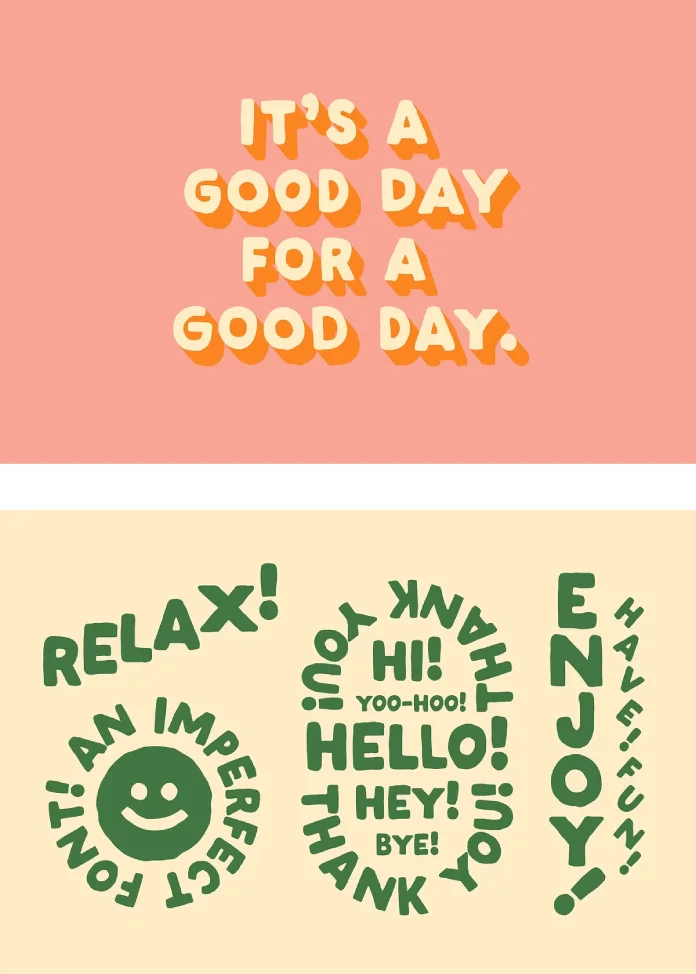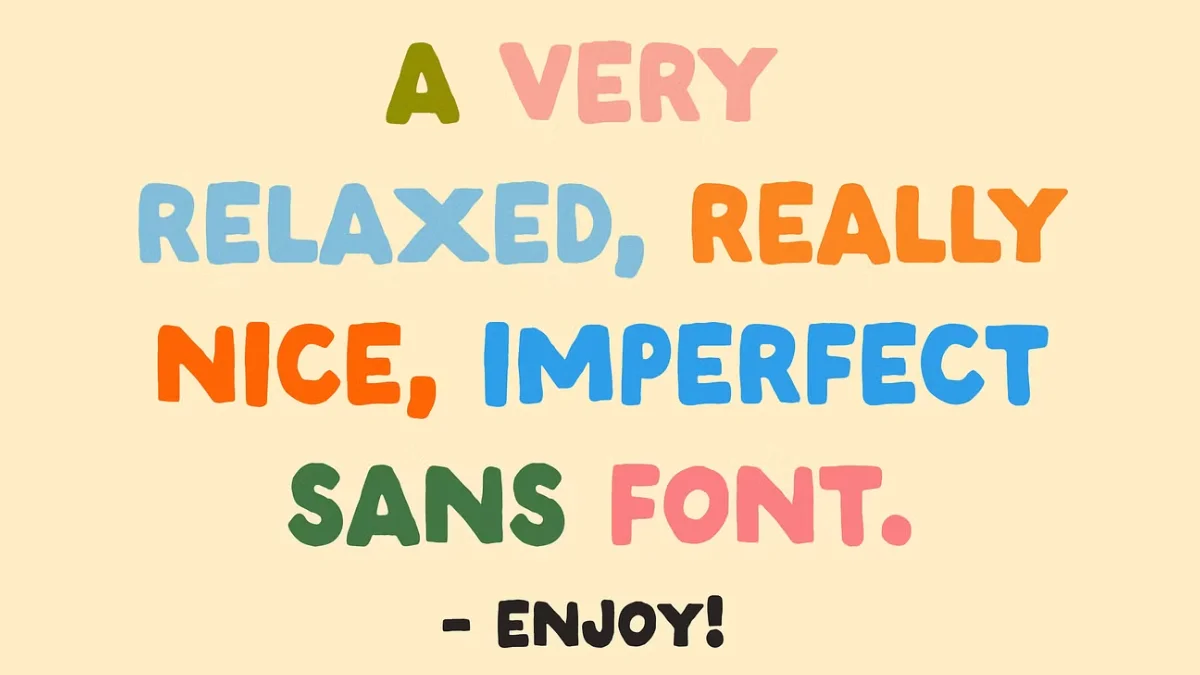
Let’s Take a Look at Studio Funshop’s Imperfect Font: Your New Go-To for Authentic Handwritten Charm
You know that feeling when you receive a handwritten note versus an email? There’s a warmth, a personality, a human touch that digital perfection often misses. What if you could bring that genuine, handcrafted feeling into your own projects? Think about logos that feel welcoming, social media quotes that truly resonate, or website titles that instantly connect with visitors. It sounds pretty appealing, right? Many designers and creators are searching for ways to inject that much-needed authenticity back into their work. They want tools that help them stand out, not blend in. Finding that perfect balance between professional polish and relatable warmth can be tricky. You need something unique, something with character, something… well, perfectly imperfect. This is where the magic often happens. It’s in those slight variations, the subtle inconsistencies, that true personality shines through. And that’s exactly what brings us to a delightful discovery: the Imperfect font.
Meet the Star: The Imperfect Font by Studio Funshop
So, what exactly is this Imperfect font everyone’s starting to talk about? It’s a fantastic handwritten sans-serif typeface created by the talented Kelli at Studio Funshop. Imagine someone carefully, yet casually, writing out letters. Not with robotic precision, but with the natural flow and slight variations that come from a human hand. That’s the essence captured in the Imperfect font. Kelli literally drew each character individually. Think about that for a moment. Every letter, every number, every symbol started as a hand-drawn element. This process inherently builds in those wonderful little quirks – the “imperfections” – that make handwriting so appealing. It’s not about mistakes; it’s about character. It’s relaxed, approachable, and feels incredibly genuine, like receiving a friendly note penned just for you. If you appreciate things that feel handmade, hand-lettered, or personally drawn, the Imperfect font will likely feel like a breath of fresh air.
The Inspiration Behind the Quirks
Where does such a uniquely human font come from? Kelli shares that the inspiration for the Imperfect font is a wonderful mix of cherished aesthetics. Think about the charm of vintage printing, where the ink might not hit the page perfectly every time, creating unique textures. Remember doodling absentmindedly on a notepad during a long call? That relaxed, uninhibited style is echoed here. Consider the warmth of personal, handwritten notes passed between friends. These elements – vintage character, casual doodling, and personal handwriting – all converge in the Imperfect font. It’s a tribute to the beauty found in things not quite polished, the things that tell a story through their very form. Kelli’s love for hand-lettering shines through, transforming these inspirations into a usable, versatile digital font that retains that essential handmade soul. It’s clear this wasn’t just about creating letters; it was about bottling a feeling.
Exploring the Unique Charm of the Imperfect Font
What specifically makes the Imperfect font so special? It’s all about the details. First off, being a sans-serif font means it lacks those little “feet” (serifs) at the ends of strokes, giving it a clean, modern base. However, overlaying this clean structure is the undeniable handwritten quality. The lines aren’t perfectly straight. The curves aren’t mathematically precise. This is intentional, and it’s where the magic lies.
Furthermore, Kelli included alternates! What are alternates, you ask? They are different versions of the same letter. Having alternates means you can swap out letters within a word to avoid repetition and enhance the natural, handwritten look. For instance, if you type the word “LOOK,” the two ‘O’s don’t have to look identical, just like they wouldn’t if you wrote them by hand quickly. This feature significantly boosts the font’s authenticity. It prevents that tell-tale sign of digital text where identical letters look exactly the same. Using the Imperfect font with its alternates allows your text to feel dynamic and genuinely custom-lettered. It’s these thoughtful inclusions that elevate it beyond a simple typeface; it becomes a tool for creating truly unique and personable designs.
Where Can You Use This Handwritten Sans-Serif?
Okay, you’re intrigued by the Imperfect font. But where would you actually use it? Its versatility might surprise you.
- Logos: Need a brand identity that feels friendly, approachable, and creative? The Imperfect font is perfect for logos that want to convey personality and warmth. Think cafes, artisan boutiques, craft businesses, personal brands, or any company wanting to appear more human.
- Quotes: Whether for social media graphics, posters, or website banners, this font makes quotes pop. Its handwritten style adds emphasis and emotional resonance, making the message feel more personal and impactful. Imagine your favorite inspiring quote rendered in this charming script.
- Art & Illustrations: Integrating text into artwork? The Imperfect font blends beautifully with hand-drawn illustrations or mixed-media pieces, maintaining a cohesive, handcrafted aesthetic.
- Titles & Headings: Use it for blog post titles, section headers on a website, or chapter titles in a document to add a touch of informal elegance and draw the reader in.
- Packaging & Labels: Products aiming for an organic, handmade, or bespoke feel can benefit immensely. Think jam jars, soap packaging, or clothing tags.
- Greeting Cards & Invitations: Perfect for adding a personal touch to invitations, thank you notes, or holiday cards.
Essentially, anywhere you want to inject personality, authenticity, and a handmade touch, the Imperfect font is a fantastic choice. It bridges the gap between casual and professional, making designs feel both unique and relatable. Can you picture it enhancing your next project?
Inside the Imperfect Font: What You Get
When you get the Imperfect font, what exactly is included in the package? Kelli has made sure you have the essentials for great design flexibility.
- Uppercase Letters (A-Z): A full set of capital letters, each hand-drawn with character.
- Numbers (0-9): Numeric characters that match the font’s unique style.
- Symbols & Punctuation: All the necessary punctuation marks and common symbols are included, also drawn by hand to maintain consistency.
- Alternates: As mentioned earlier, those valuable alternate characters are part of the deal, allowing you to customize your text and enhance the handwritten feel. You can usually access these through OpenType features in graphic design software.
This font is great for adding personality and genuine warmth to your work. It helps you create designs that connect on a human level. Ready to give your projects that wonderfully authentic, handmade feel? Check out the Imperfect font from Studio Funshop by Kelli. You might just find that it becomes an indispensable part of your creative arsenal. What will you create with it first?